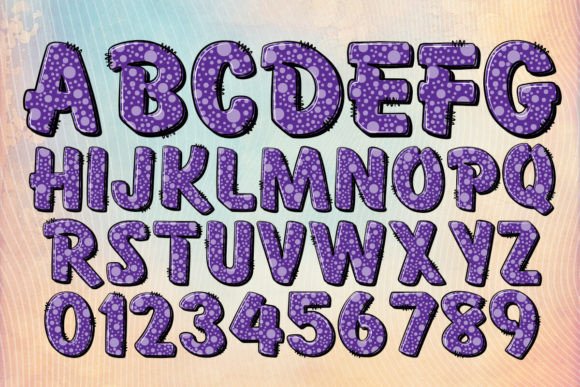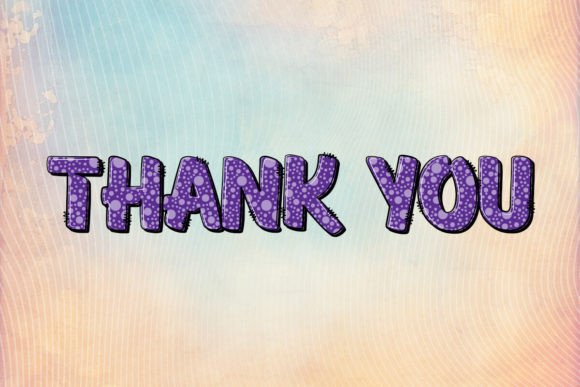
Introduction to Halloween Purple Dot Font
Do you remember the moment when you finally found the perfect font to elevate your Halloween-themed craft project? For many designers, this is a moment of pure joy and excitement. But, what if you could infuse that same magic into your designs with a font that perfectly captures the essence of the spooky season?
Enter the enchanting Halloween Purple Dot Font, a delightful typography that combines the charm of autumn with the eerie allure of Halloween. This high-quality font is a valuable resource for designers who crave unique and creative solutions for their projects. With its lovely aesthetics and Halloween-themed artistry, the Halloween Purple Dot Font is sure to add a touch of whimsy and wonder to any design. Whether you’re creating invitations, decorations, or digital art, this font is a must-have for any designer looking to tap into the fun and excitement of Halloween.
Key Features of Halloween Purple Dot Font
- High-quality design perfect for creative projects and festive celebrations
- Unique, eye-catching design featuring purple dots on a transparent background, adding a spooky touch to any design
- Perfect for use in graphic design, digital art, and print projects, such as invitations, posters, and more
Honest Review: Halloween Purple Dot Font
I recently stumbled upon the Halloween Purple Dot Font, a free download that caught my attention for its unique design. As a designer, I appreciate high-quality resources that can elevate a creative project.
Here’s what works well: ✨ The font has a clear and transparent background, making it easy to work with and ensuring seamless integration with any design. The purple dots add a playful touch, perfect for Halloween-themed projects or anything that requires a touch of whimsy.
However, I noticed a few limitations: ⚠️ The font is quite limited in terms of character set, which might be a drawback for some designers. Additionally, the design might be a bit too playful for more serious projects, so it’s essential to consider the context before using it.
Overall, I think the Halloween Purple Dot Font is a great resource for designers looking for a fun and creative element to add to their projects. With some caution and consideration of its limitations, it can be a valuable addition to any design arsenal.
- Unique design with transparent background
- Perfect for creative projects or Halloween-themed designs
- Limited character set
- May not be suitable for serious or formal projects
Halloween Purple Dot Font
Experiment with different font sizes, colors, and alignments to create a unique design. You can also use the Halloween Purple Dot Font in combination with other design resources to create a cohesive look.
The Halloween Purple Dot Font is perfect for any creative project, including invitations, party decorations, and social media graphics. You can also use it to add a spooky touch to your Halloween-themed designs.